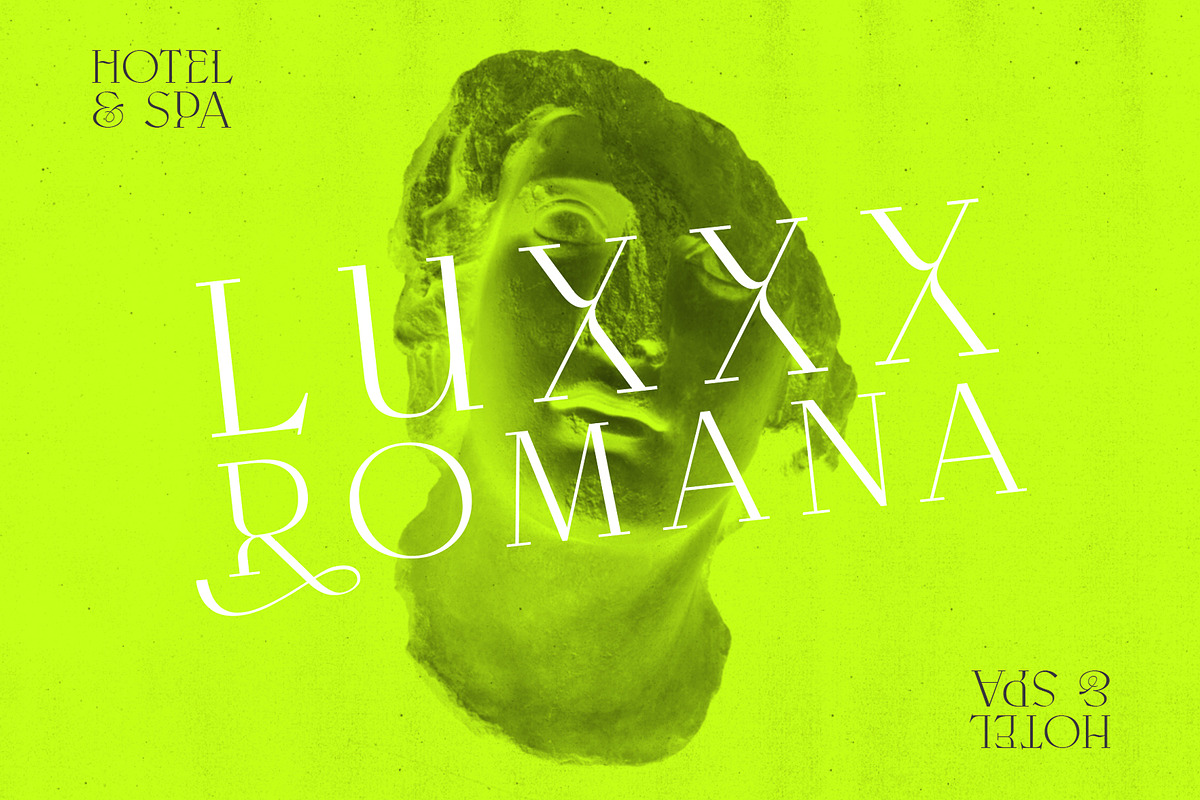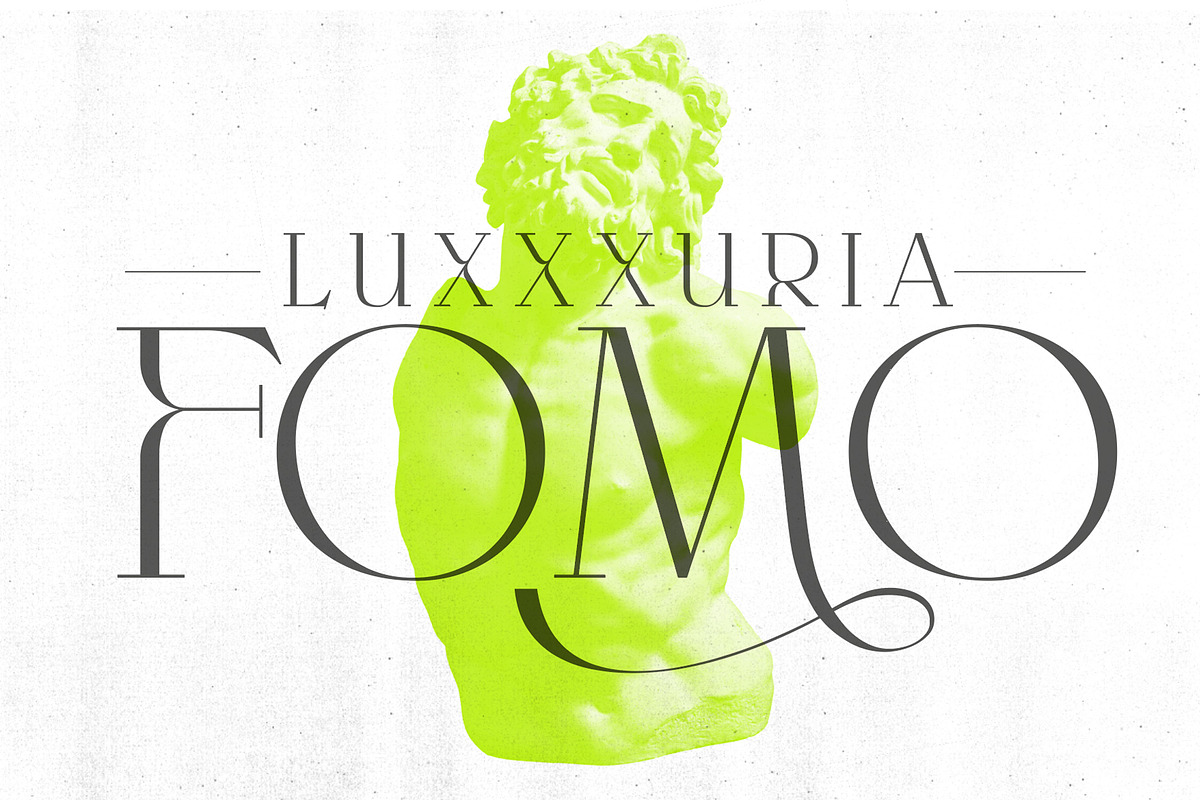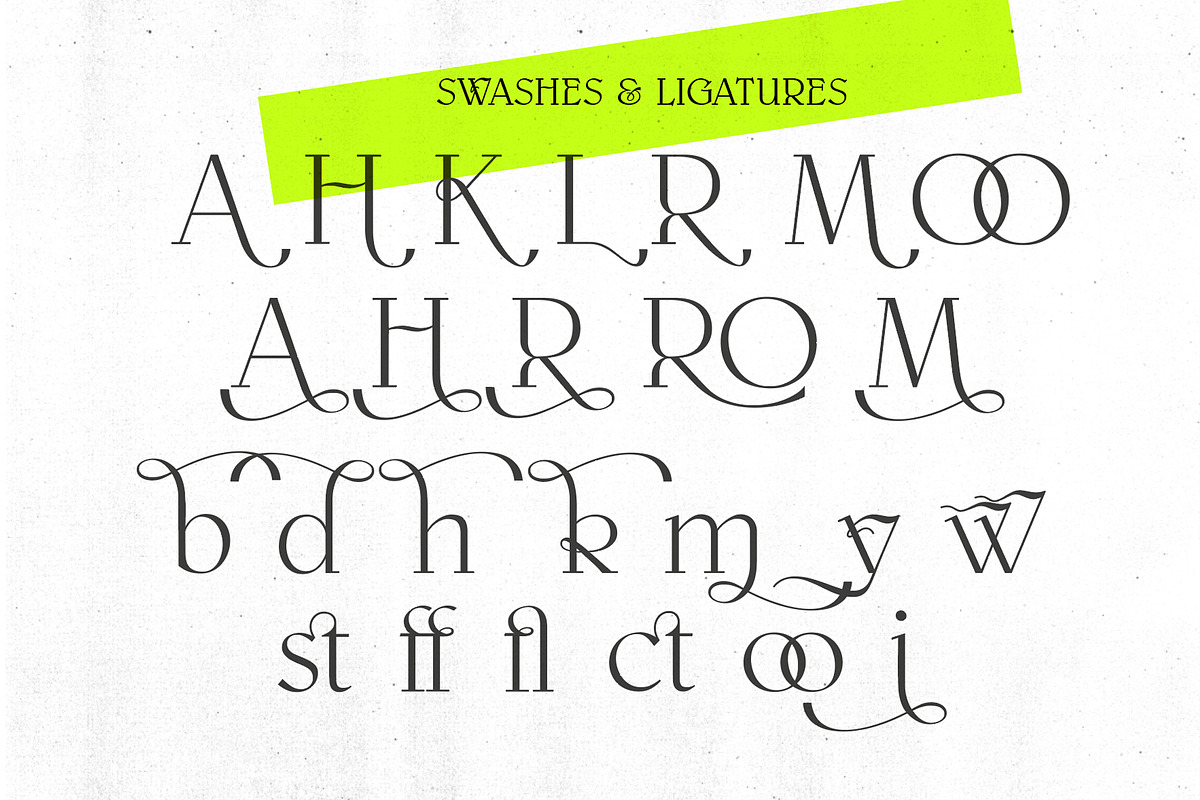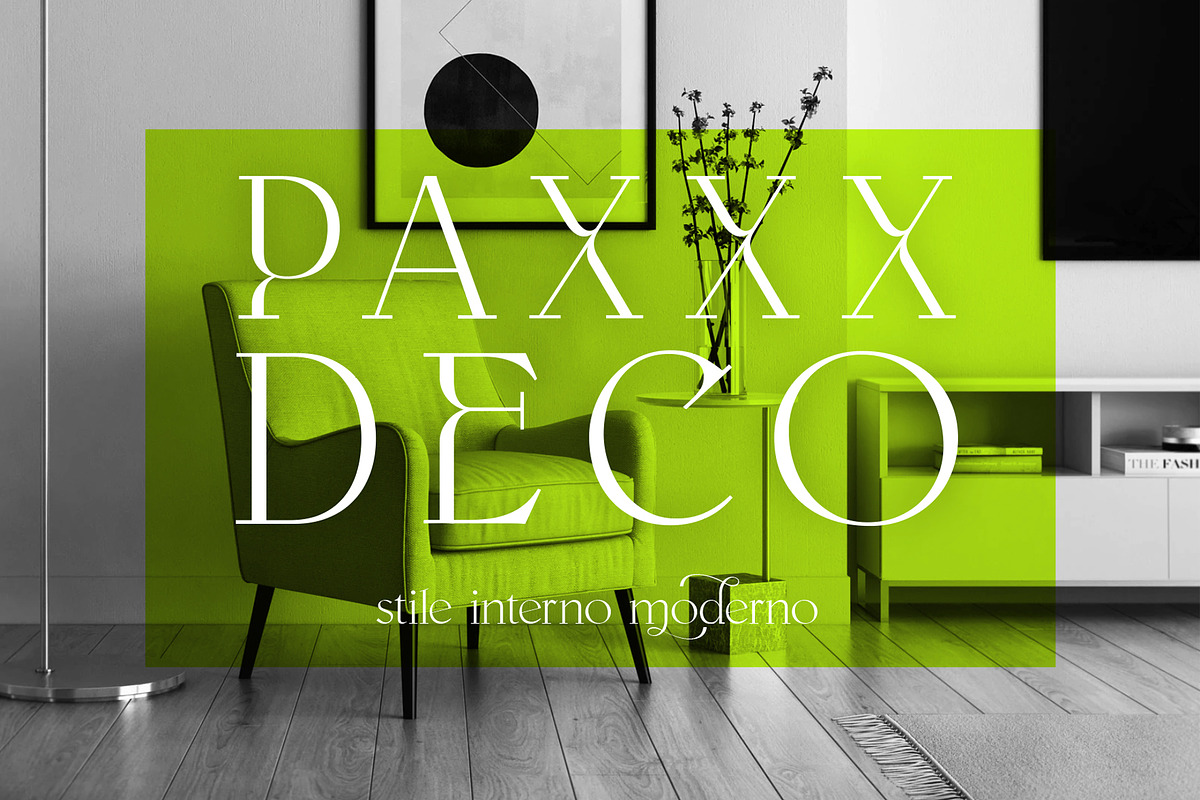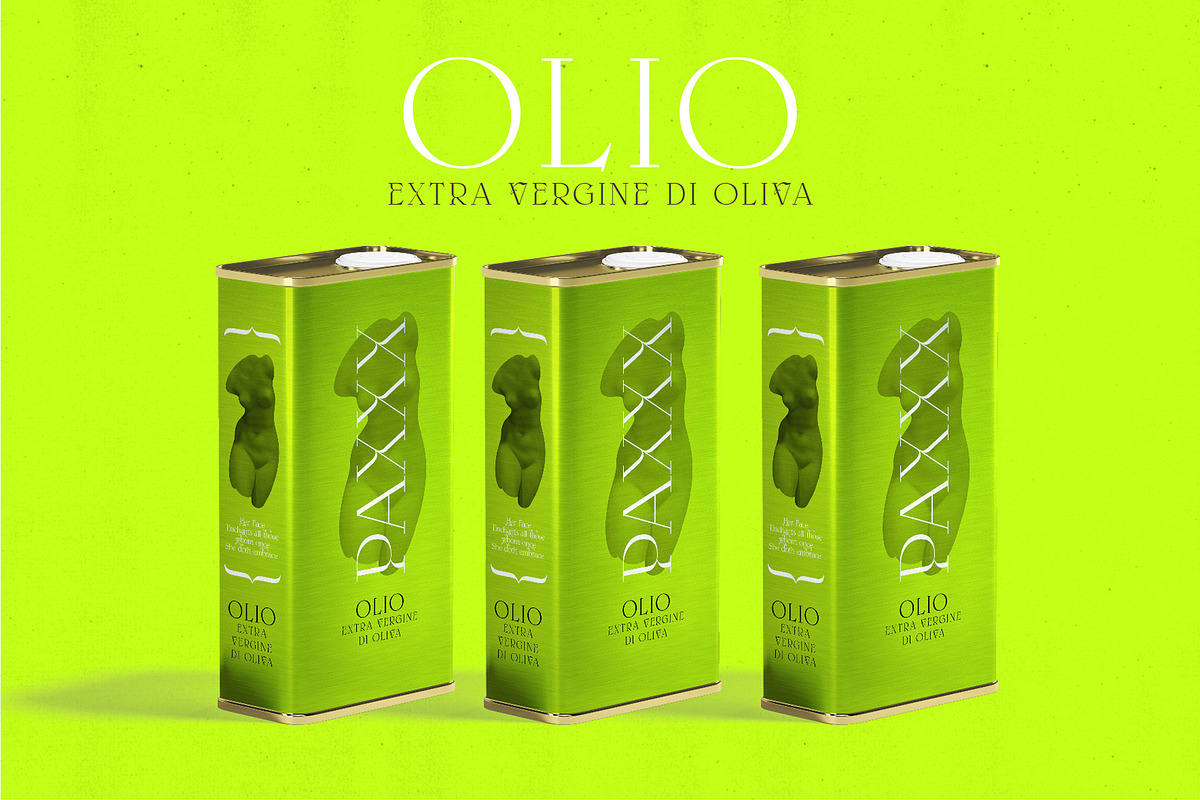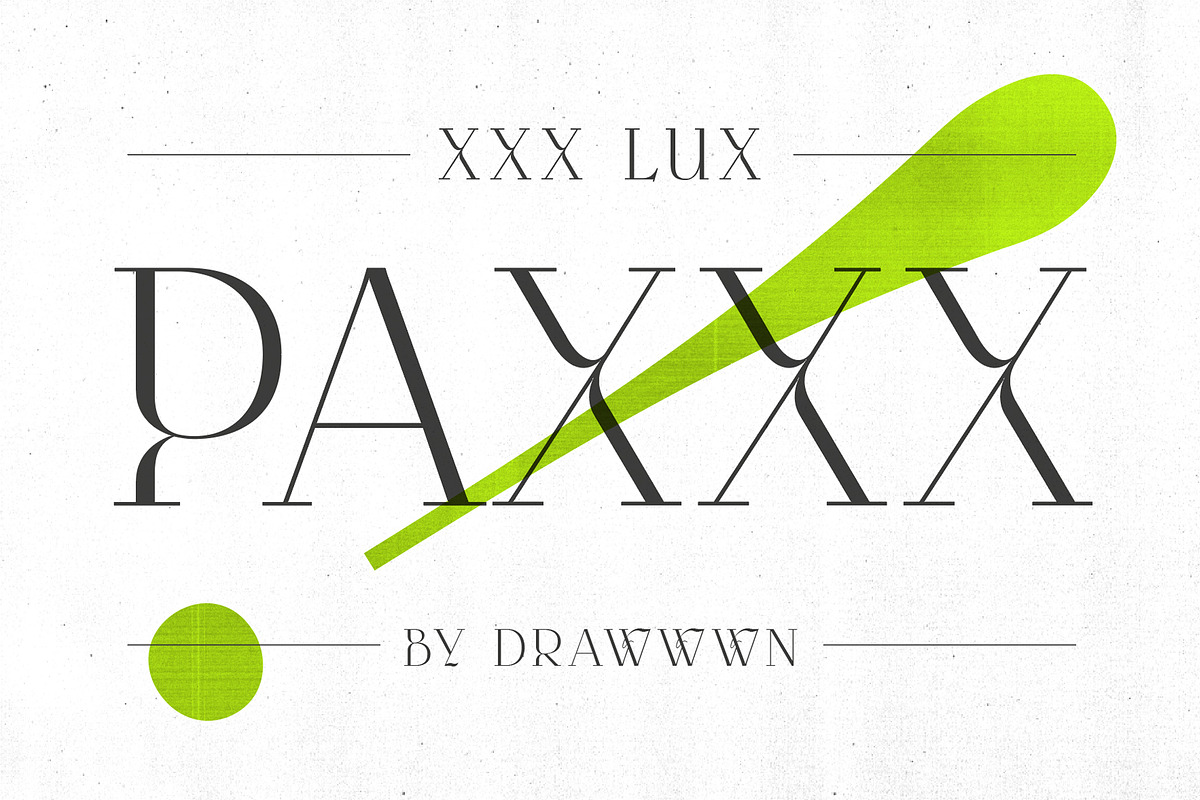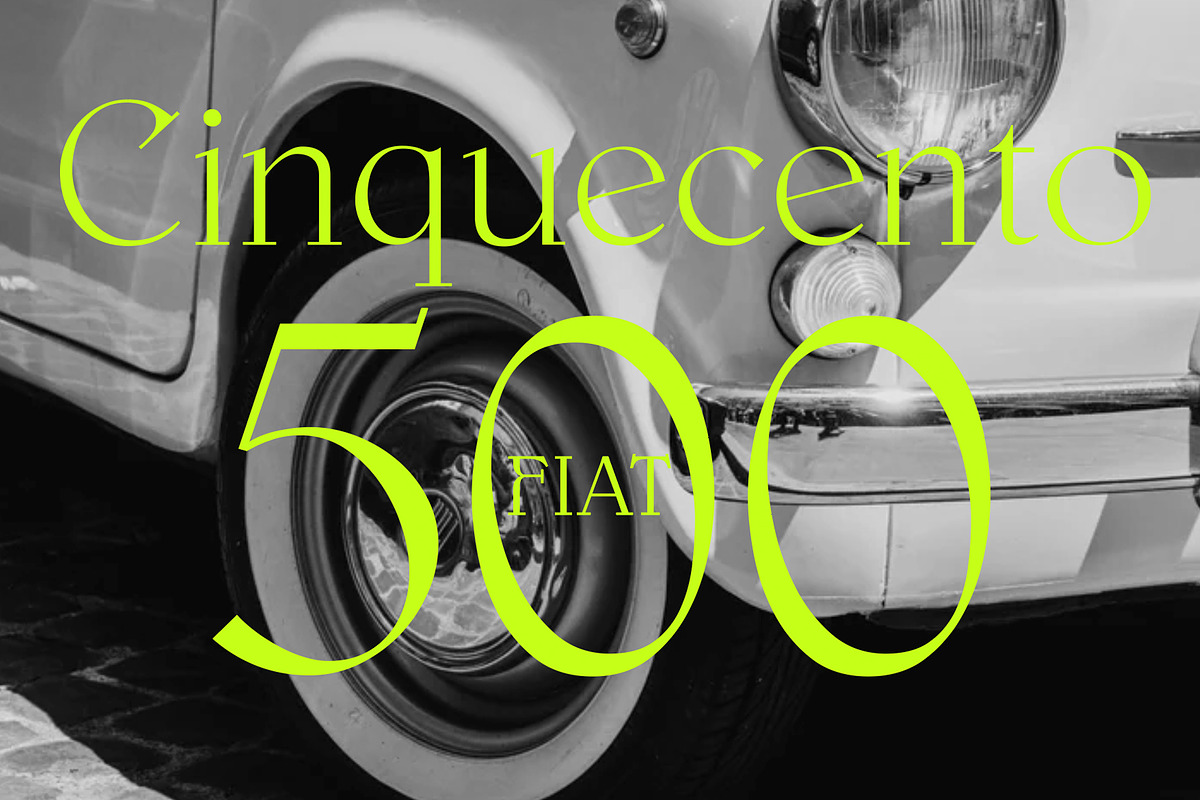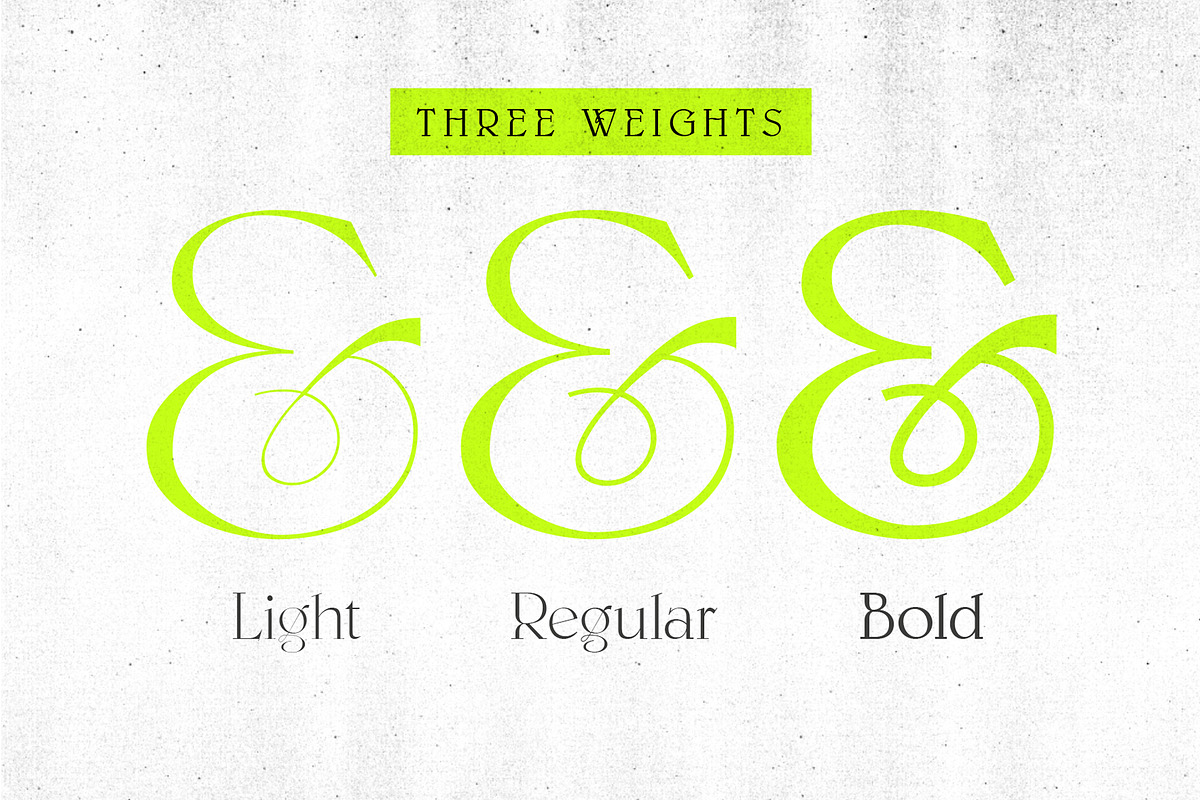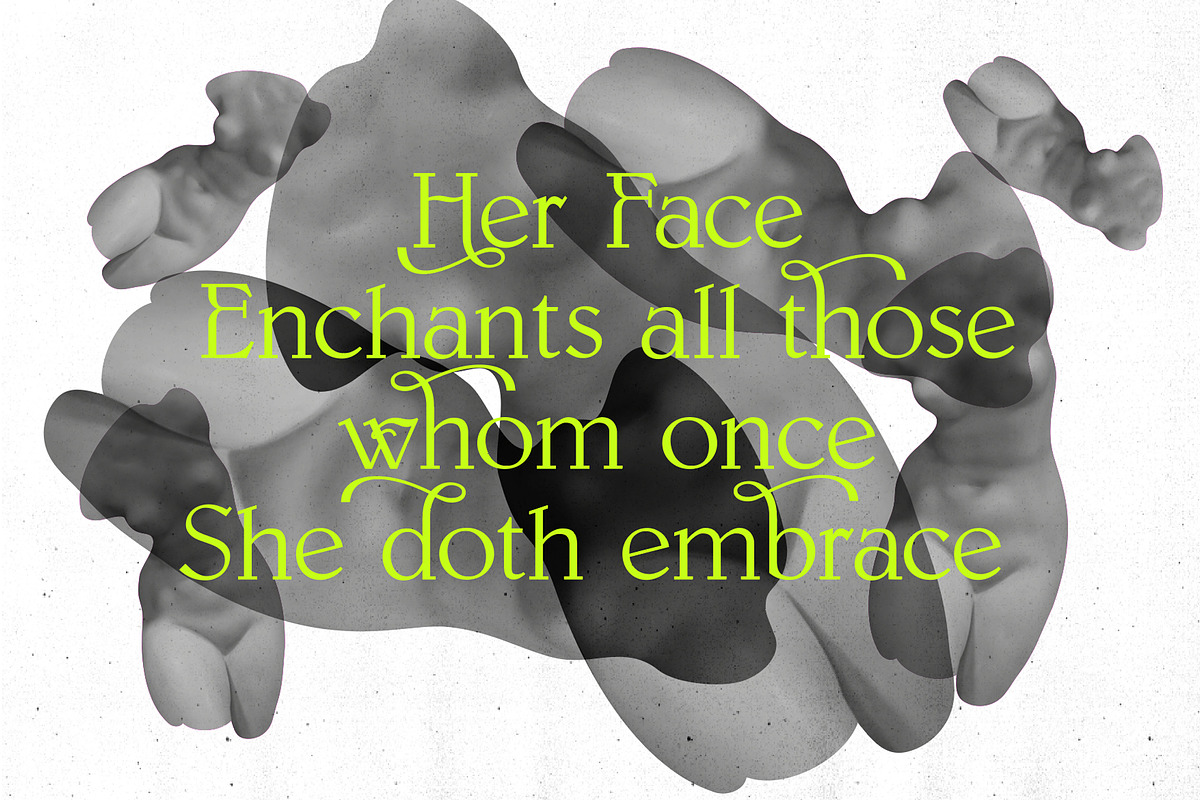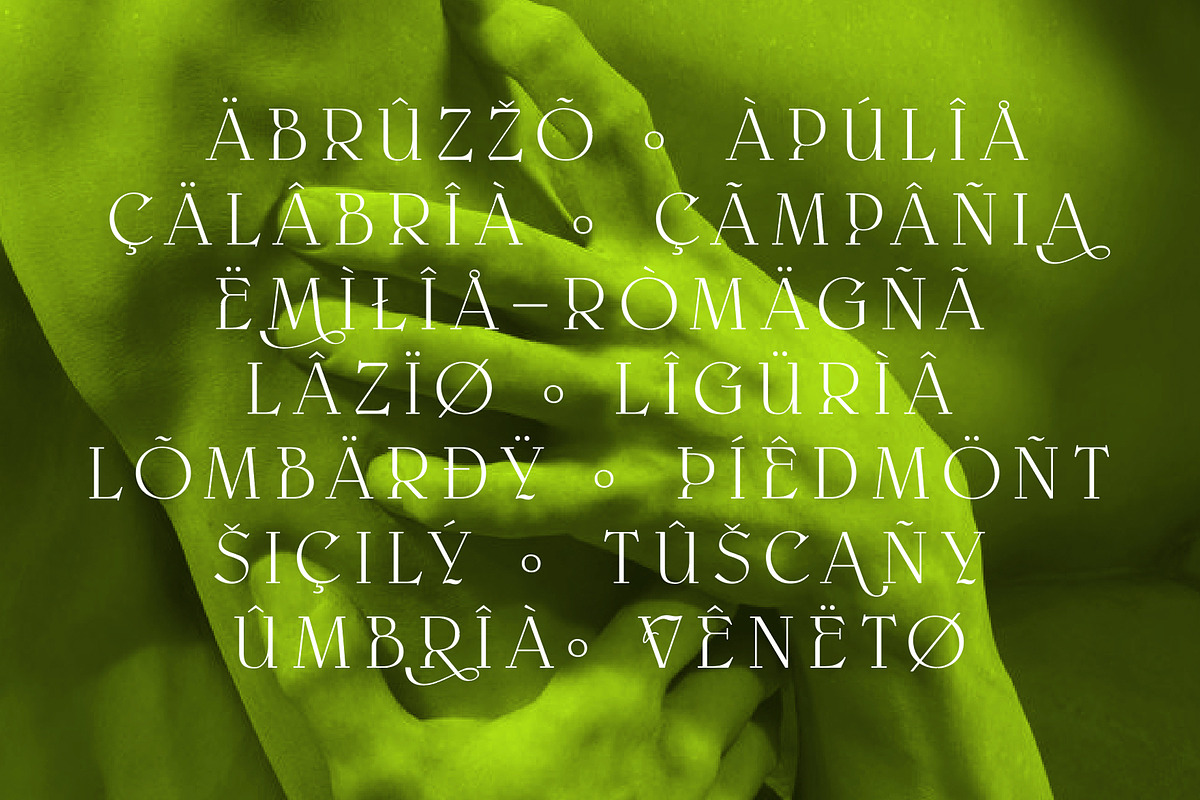
Paxxx | Lux serif
Paxxx is an ultra luxury serif font with classical lines and curvaceous flourishes. Slim and stylish it's perfect for upmarket restaurant branding, sleek upscale food packs and fashionista social campaigns. There's three weights to choose from, all have extra swashes, flourishes and extra accent glyphs.